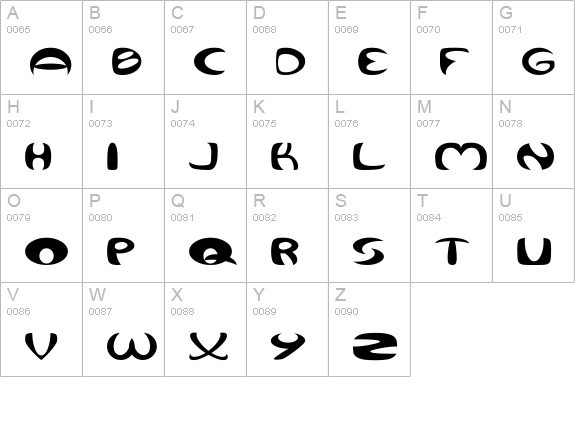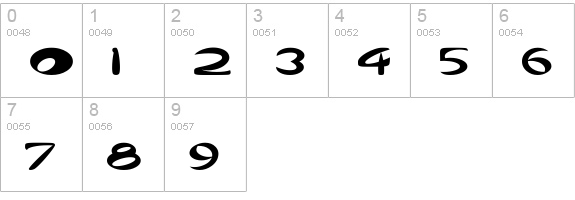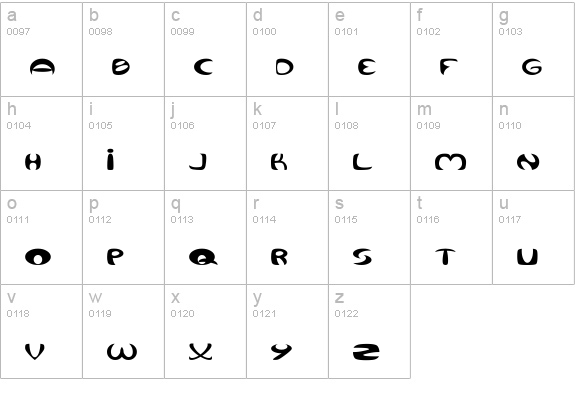
Qurve Wide is a distinctive, extended-width variant in the Qurve typeface family \xE2\x80\x94 well suited to design and typography projects.
Qurve Wide font is a stunning and versatile typeface that is sure to capture attention with its unique and stylish design. With its bold and curvaceous letterforms, this font exudes a sense of modernity and elegance. The wide proportions of the letters give Qurve Wide font a bold and impactful presence, making it perfect for headlines, titles, and posters. Its clean and smooth lines ensure legibility even at smaller sizes, making it also suitable for body text and longer paragraphs. What sets Qurve Wide font apart is not only its striking visual appeal but also its accessibility. It is freely available to download at FontsMarket.com, allowing designers, creatives, and anyone in need of a visually captivating and versatile font to have easy access to it. This means that you can incorporate this exceptional typeface into your projects without any hassle or additional costs. Whether you're designing a logo, creating eye-catching advertisements, or crafting beautifully designed invitations, Qurve Wide font will elevate your work to a whole new level. Its wide range of weights and styles provides endless possibilities for creative experimentation, allowing you to find the perfect fit for any project. With Qurve Wide font, you can add a touch of sophistication and modernity to your designs effortlessly. So why wait? Download this free font now at FontsMarket.com and unlock the potential of Qurve Wide font for all your creative endeavors.